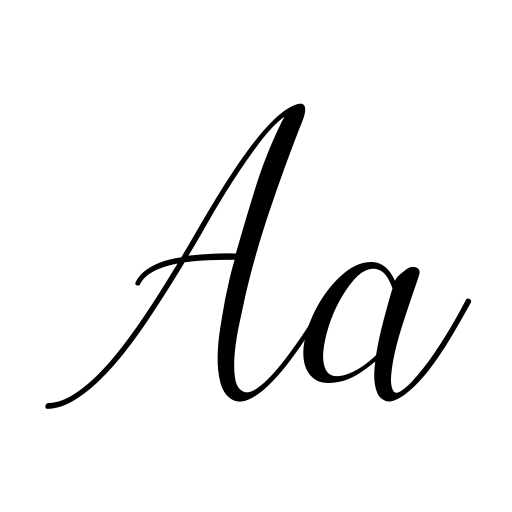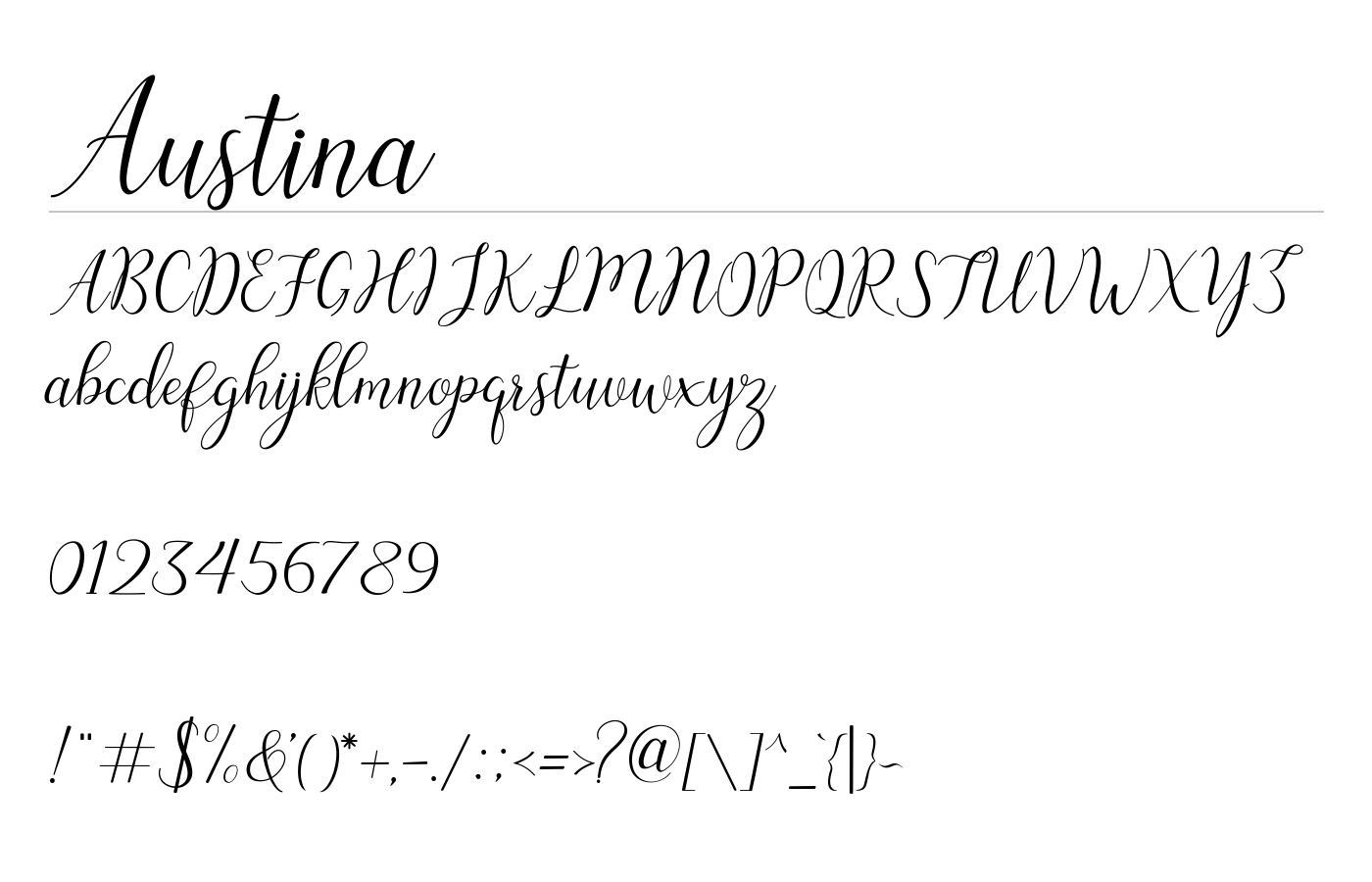
Austina is an elegant, flowing script font with a delicate and refined character, featuring slender strokes and graceful letterforms that evoke a handwritten calligraphy style. Its light weight and high contrast between thin and slightly thicker lines give it a sophisticated, airy feel, making it perfect for wedding invitations, luxury branding, and decorative headlines that require a touch of charm and femininity. This font shines in designs where elegance and personality are key, bringing a sense of warmth and classic beauty to any project.
Austina Font
About Austina Font